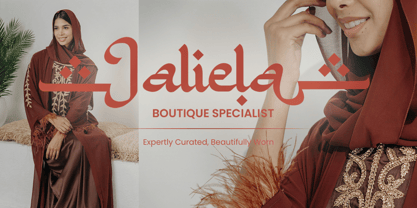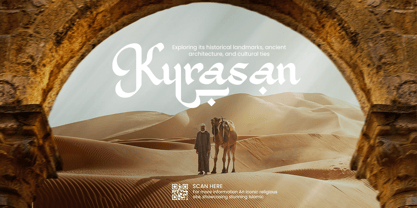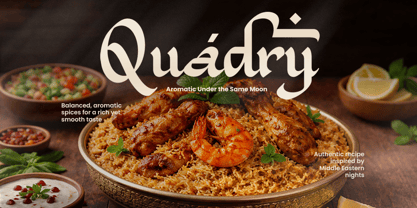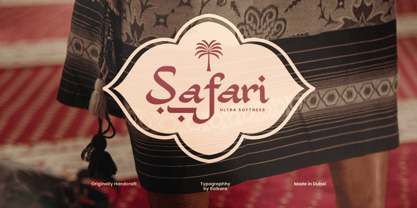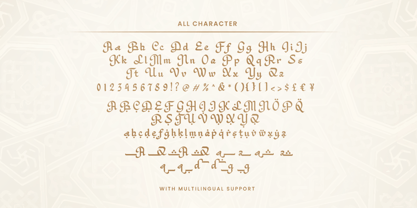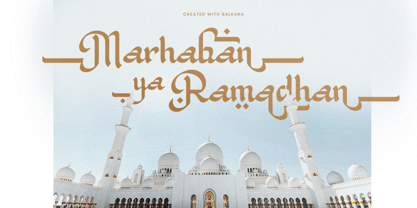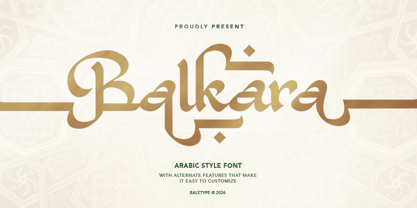
Balkara
by Bale Type
The Balkara Font Family was designed by Dzikrul Aulia and published by Bale Type. Balkara contains 1 styles.
Balkara is a stylish bold font inspired by the beauty of the Arabic alphabet, designed with stylish alternates that add elegance and visual interest to your typography. While it captures an authentic Arabian feel, the letterforms remain readable for a wide audience, making it both expressive and practical. Perfect for branding, logo design, wedding invitations, and special occasions such as Ramadan and other Islamic holidays, Balkara brings a distinctive Islamic aesthetic to any project. The font includes numerals and symbols and supports multilingual characters, ensuring flexibility and ease of use across various creative needs.
Designers: Dzikrul Aulia